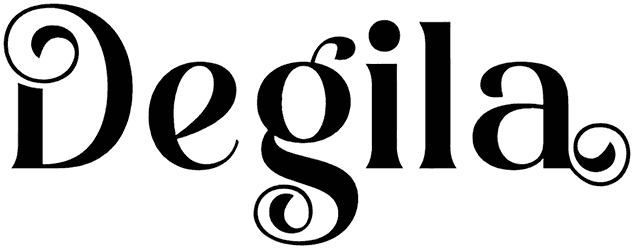
Degila Font
A prestigious serif font, the same as the Degila, can insanely widen your selection range by providing two distinctive styles. Due to its clean shapes and amazing legibility, it really deserves to be on your radar for designing high-end movie posters, business cards, product packaging, billboards, or flyers.